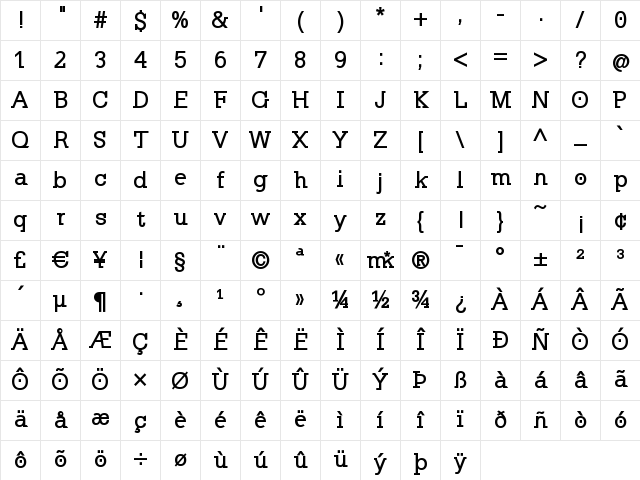
Complete KleinSlabserif-Bold Regular glyph index. Displaying only characters natively supported by KleinSlabserif-Bold Regular font.
KleinSlabserif-Bold features prominent, blocky serifs that give it a confident, grounded presence - equally at home in editorial settings and bold branding work. Its bold stroke weight gives it real presence on the page.
Pro Tip: Use KleinSlabserif-Bold for headlines and subheadings where its slab serifs can make an impression. It also holds up well in mid-size body copy thanks to its sturdy construction.